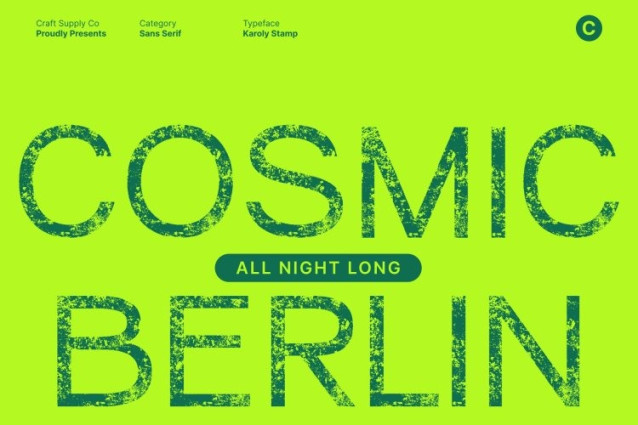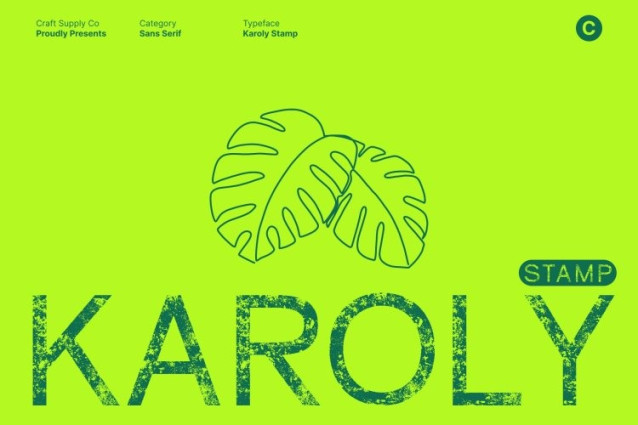
Karoly Stamp Font
Karoly Stamp Font This is a modern sans serif font designed with crisp geometric structure and clean lines, delivering a fresh and contemporary appearance. Its minimalist aesthetic gives every letter a polished and professional look, making it an excellent choice for designers who value clarity, balance, and modern simplicity.
Geometric Shapes for a Strong, Stylish Identity
Built around precise geometry, features uniform shapes, sharp construction, and smooth proportions that create a distinctly modern vibe. The font’s balanced form makes it feel both stylish and reliable, ideal for projects that require a bold professional identity without unnecessary complexity. Its structural clarity ensures excellent legibility across a range of display uses.
Stamped Texture for an Authentic Vintage Look
Enhancing its modern build is the unique stamp effect, which adds subtle texture and handcrafted imperfections to each character. This effect introduces a vintage, worn, and tactile quality, making the font visually richer and more expressive. The contrast between geometric precision and textured edges gives a distinctive character modern in shape, nostalgic in tone.
Perfect for Branding, Posters, and Creative Displays
This font excels in display settings, making it perfect for branding, packaging, editorial headers, posters, and logo design. Its clean geometry ensures a strong, contemporary identity, while the stamped texture adds personality, warmth, and visual depth.